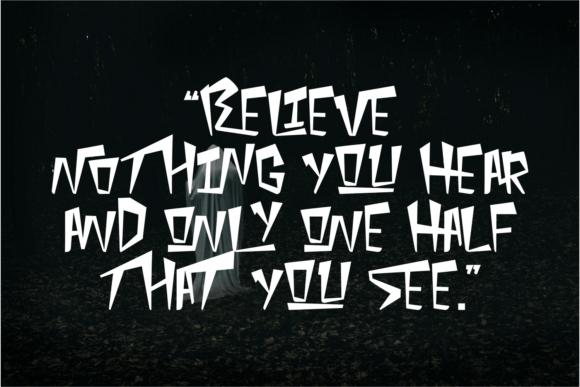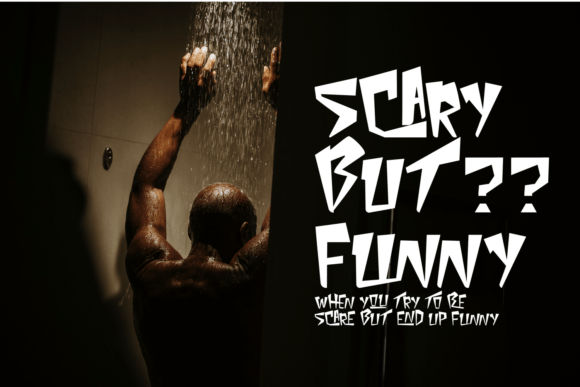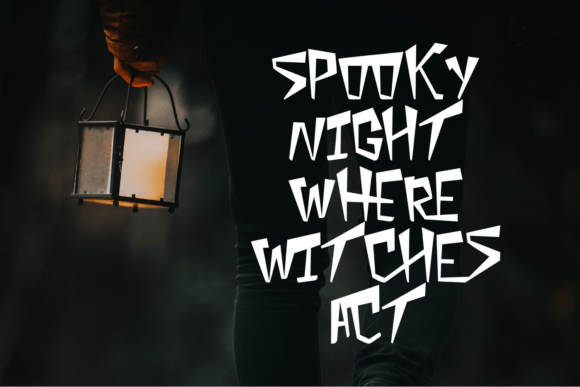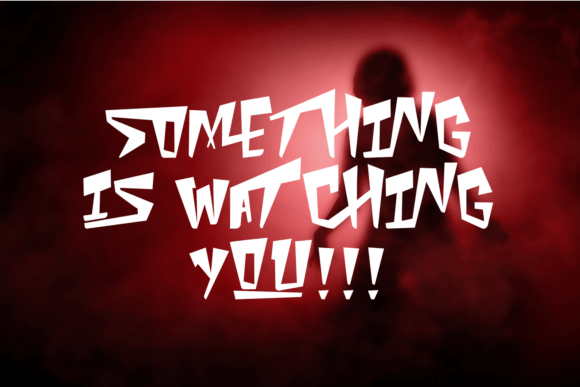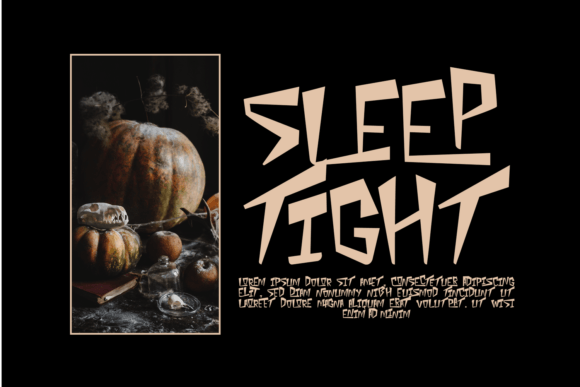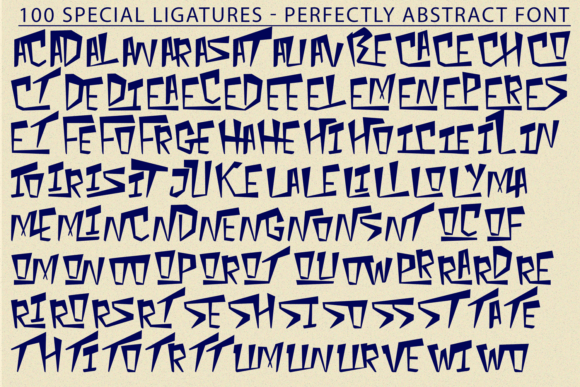
Introduction to Perfectly Abstract Font
Perfectly Abstract Font is a playful, child-like typeface.
Every word is a puzzle with pieces changing and shifting as you type hand-drawn display font with plenty of ligatures and stylistic alternatives.
Key Features of Perfectly Abstract Font